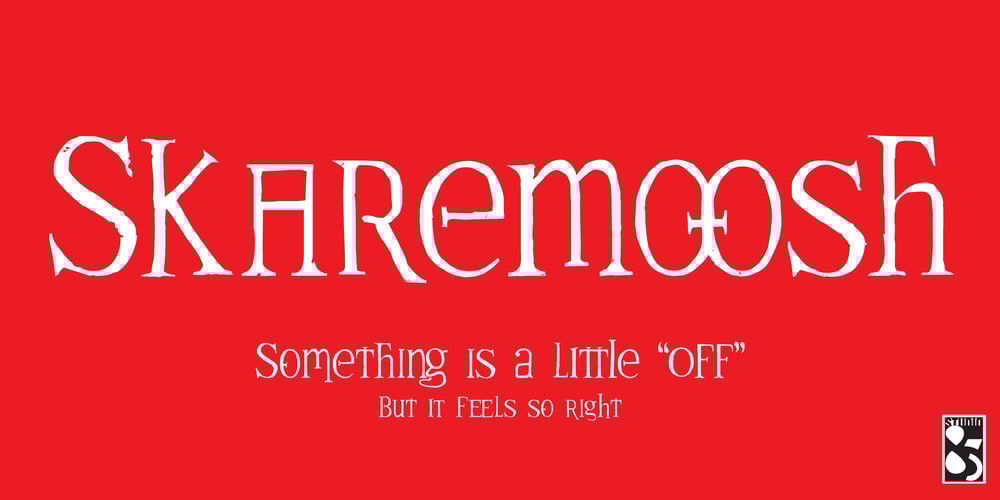
Skaremoosh Font Family was designed by John Buttino and published by Studio 85 Design. Skaremoosh contains 1 styles and family package options. Skaremoosh is display typeface that is wild and weird. It plays by its own rules, and so will you when you use this font.Included in Skaremoosh are standard ligatures, currencies, ampersands and footnotes consistent with the design. Skaremoosh is complete with alternates for each letter, and alternate ligatures for variation and stylistic choices.Skaremoosh is well suited for an informal look and feel for apps, games, fashion, posters, menus, graphic novels, and anything eye catching.This font was created after months of working on some very rule driven font projects. The need to just let loose was intoxicating – and the exact opposite of what I was doing.I really hope this font inspires some spirited designs!